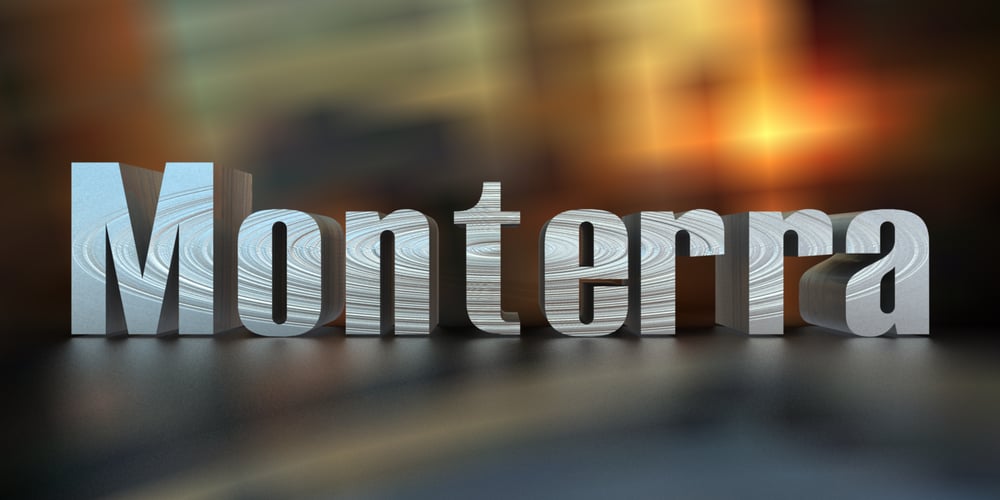
Monterra Font Family was designed by Ronnie Dela Cruz and published by ActiveSphere. Monterra contains 48 styles and family package options. Monterra is a font family ideal for flyers, label, logos, magazine, product branding, corporate branding, signage, posters and especially in advertising.